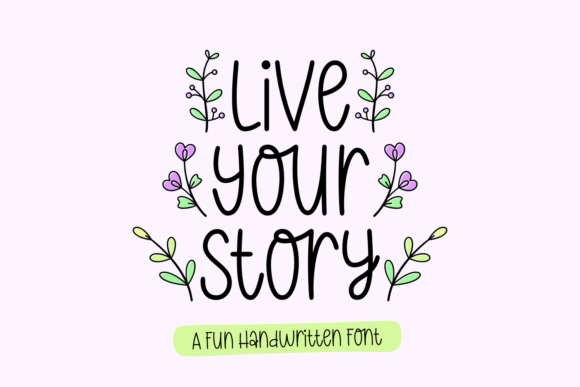
Journey into the world of Live Your Story Font, a dazzling script font brimming with enchanting characters and a warm, inviting vibe. This captivating typeface emanates the essence of handwritten elegance, beckoning you to weave tales of joy, laughter, and endless possibilities.
Live Your Story Font is a treasure trove of creativity, meticulously crafted by the talented artisans at Creative Fabrica Fonts. Each letter dances upon the page, imbued with a whimsical charm that breathes life into your words. Let this font transport you to a realm where imagination flourishes and stories come alive.
With Live Your Story Font as your creative companion, you can transform ordinary words into an extraordinary tapestry of emotions. Its playful nature makes it the perfect choice for projects catering to children, inviting them to embark on literary adventures and igniting their passion for storytelling.
Step into a world where typography meets artistry, where every letter becomes a brushstroke painting emotions onto the canvas of your designs. Live Your Story Font is not merely a font; it's an artistic expression that captures the essence of cherished memories, joyful moments, and boundless dreams.
Let Live Your Story Font be your guide as you craft enchanting invitations that spark curiosity and set the tone for unforgettable celebrations. Create captivating social media posts that resonate with your audience, leaving an indelible mark on their hearts. Design whimsical logos that embody the essence of your brand, attracting customers with a story that speaks to their souls.
Live Your Story Font is more than just a collection of characters; it's a portal to a world of creative possibilities. Open the door to endless storytelling and let your imagination run free. Experience the joy of transforming words into art, capturing hearts with every stroke of your keyboard. Unlock the power of Live Your Story Font and watch your designs blossom into extraordinary creations that leave a lasting impression.